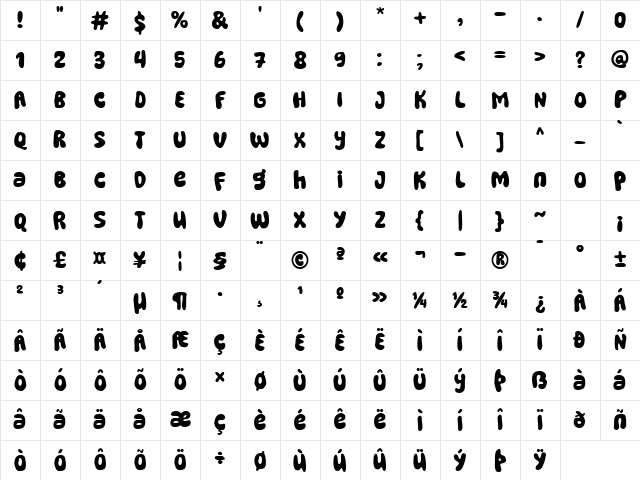
Super Serene Regular Free Font
Super Serene Regular
Design Context for Super Serene
Super Serene is a composed and adaptable typeface that performs quietly and consistently across a wide range of design contexts.